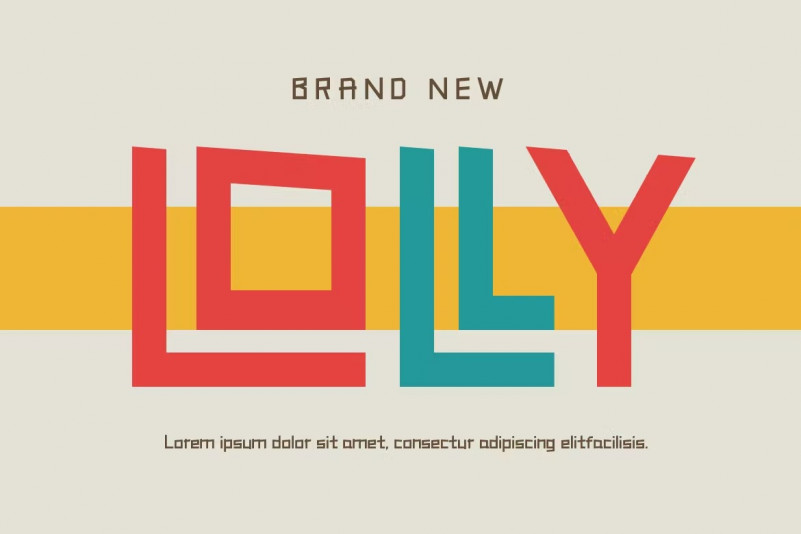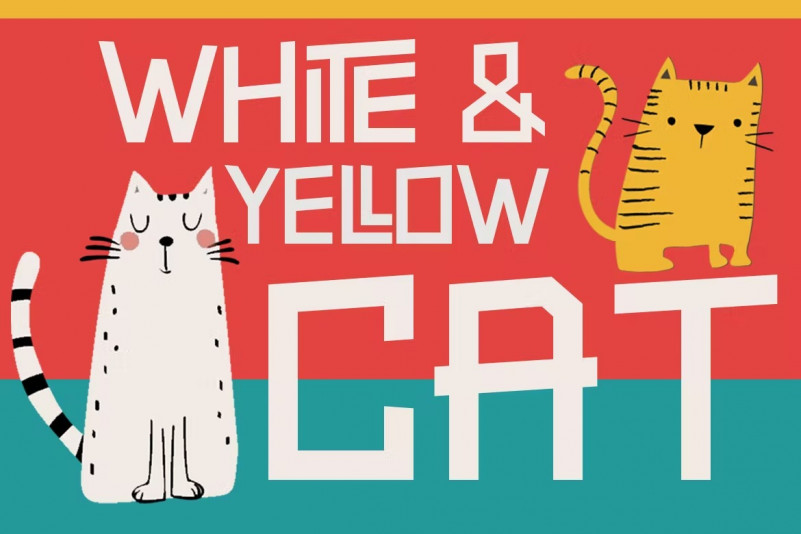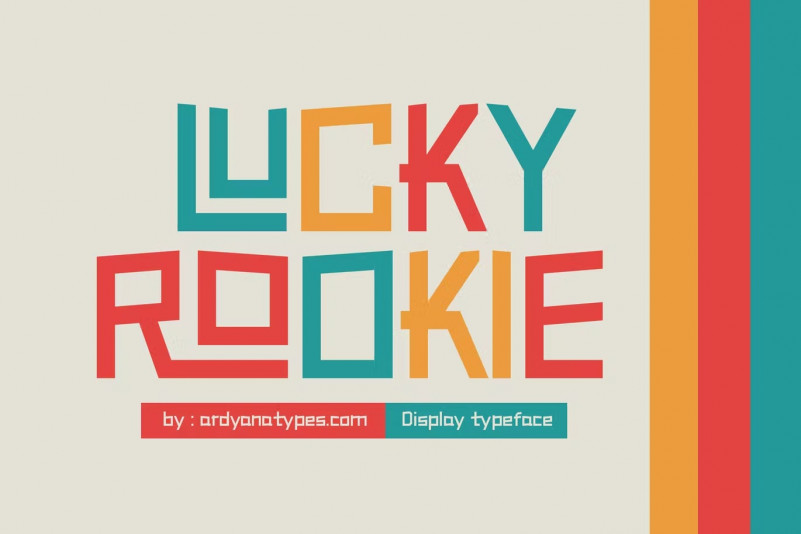
LuckyRock Font
Unique typeface decoration to be used as your design material. Cute shapes are very easy to combine with unique styles. LuckyRock is perfect for all your design needs. have ligatures and alternates to add uniqueness and interactiveness to each of your designs.